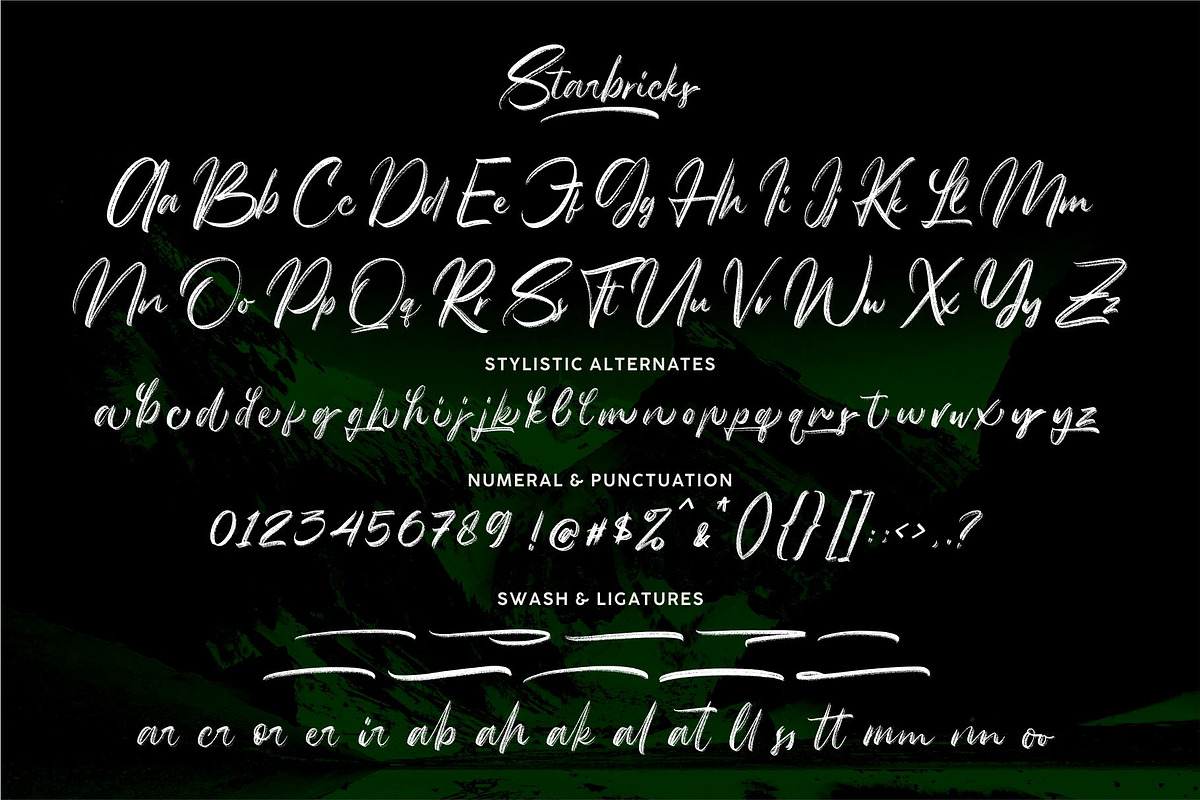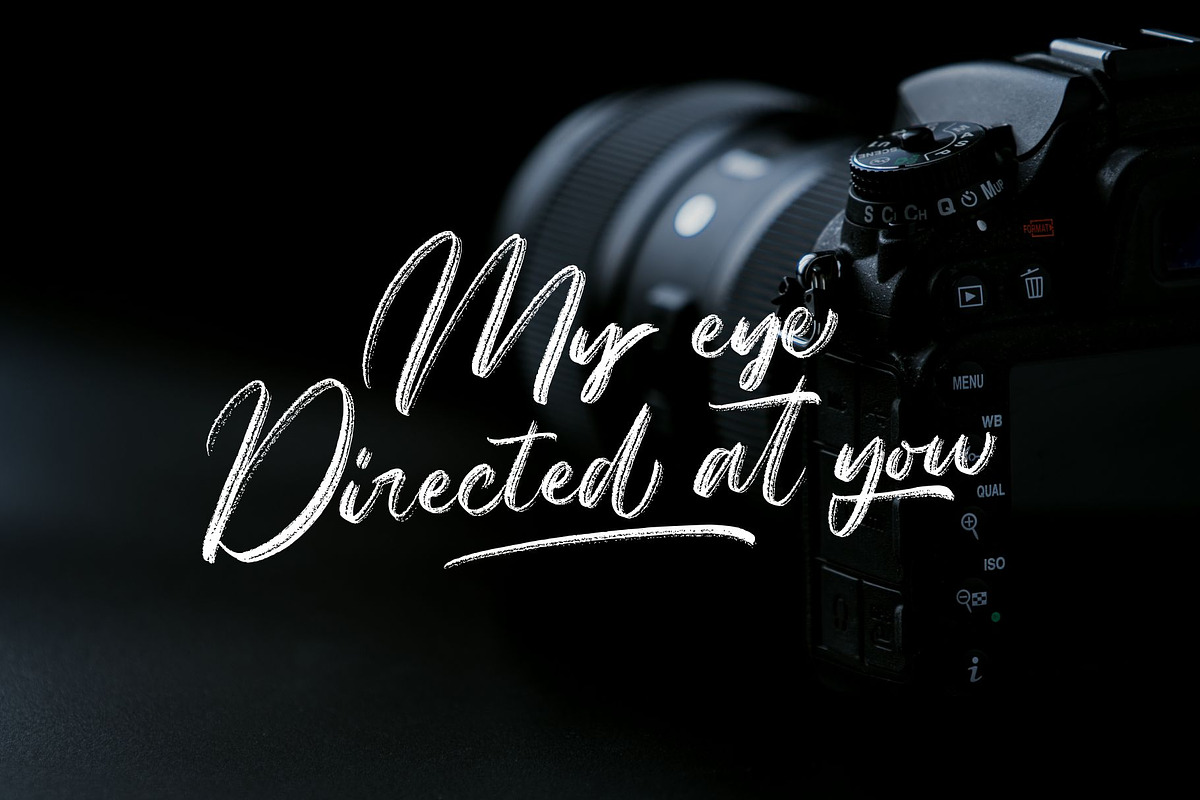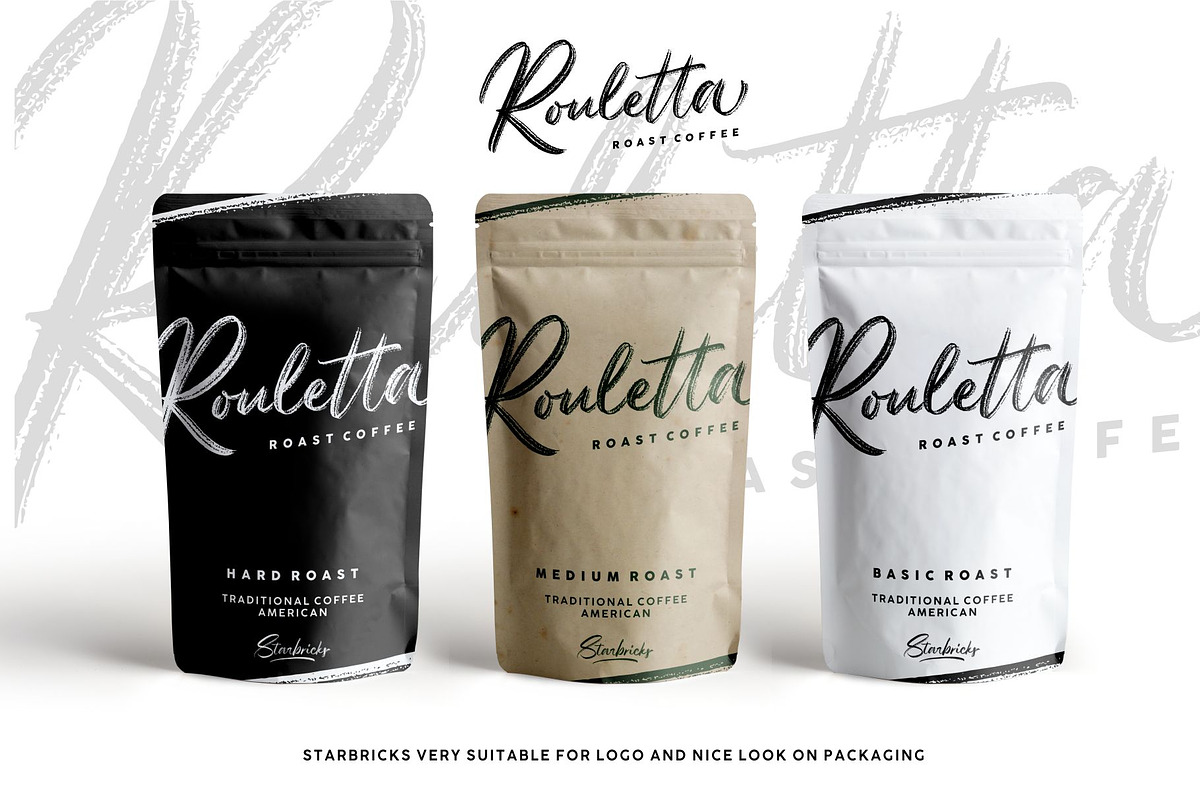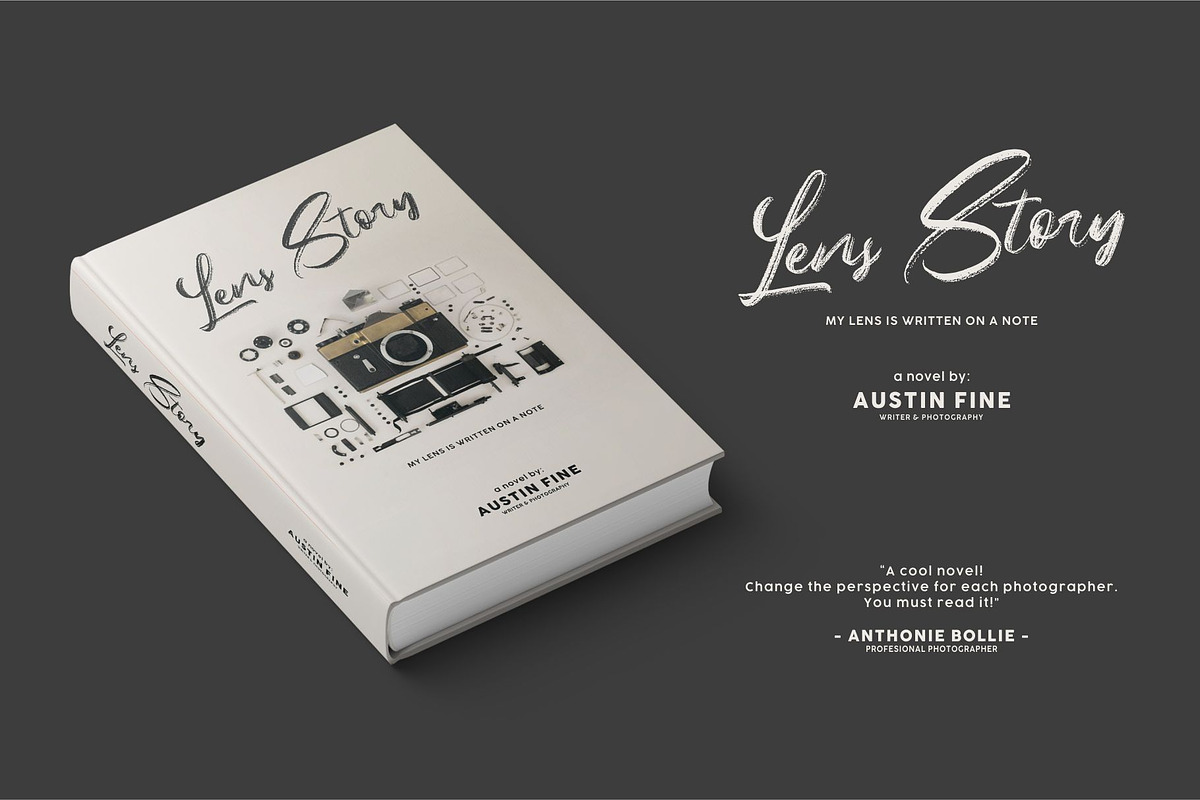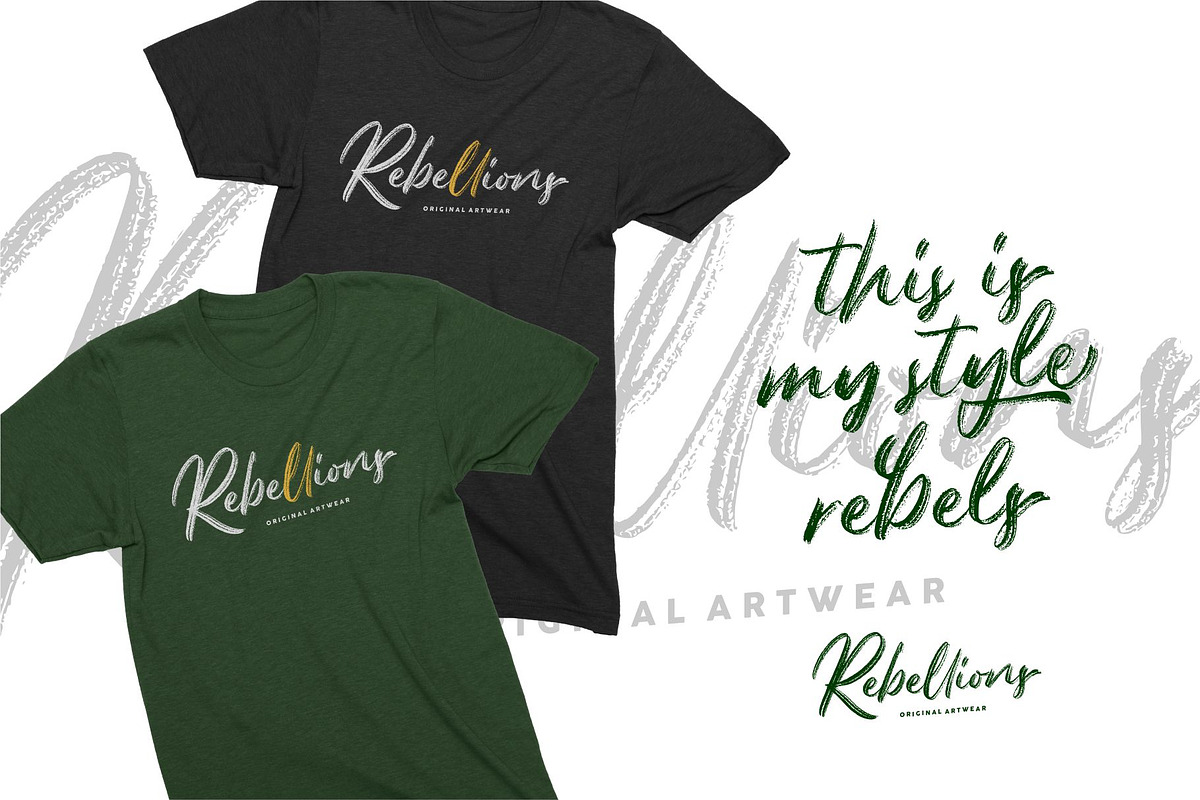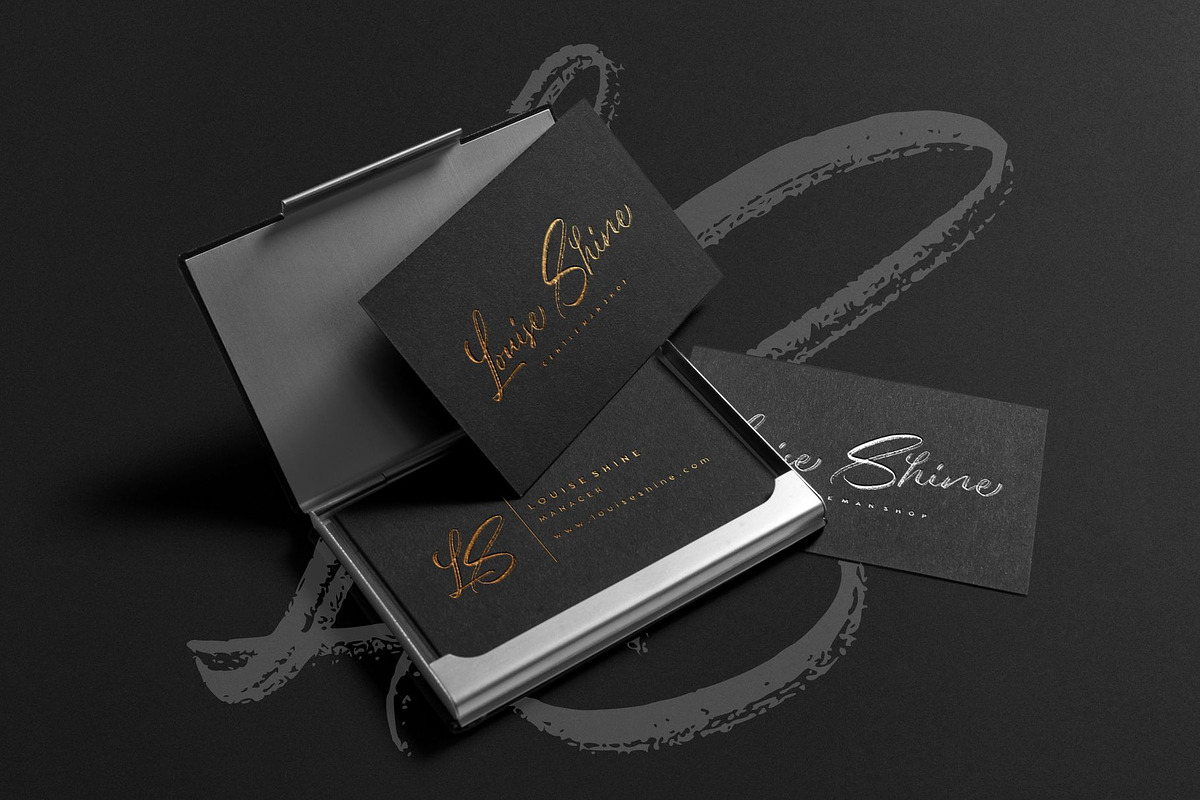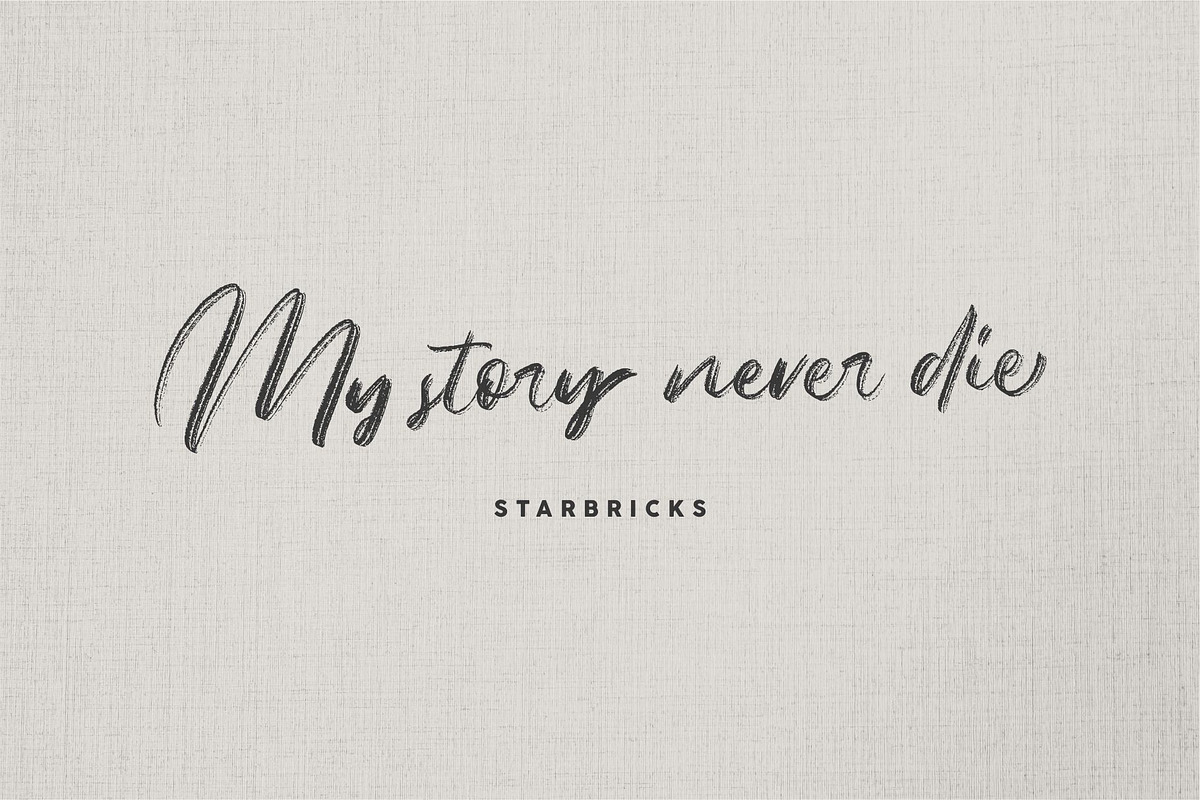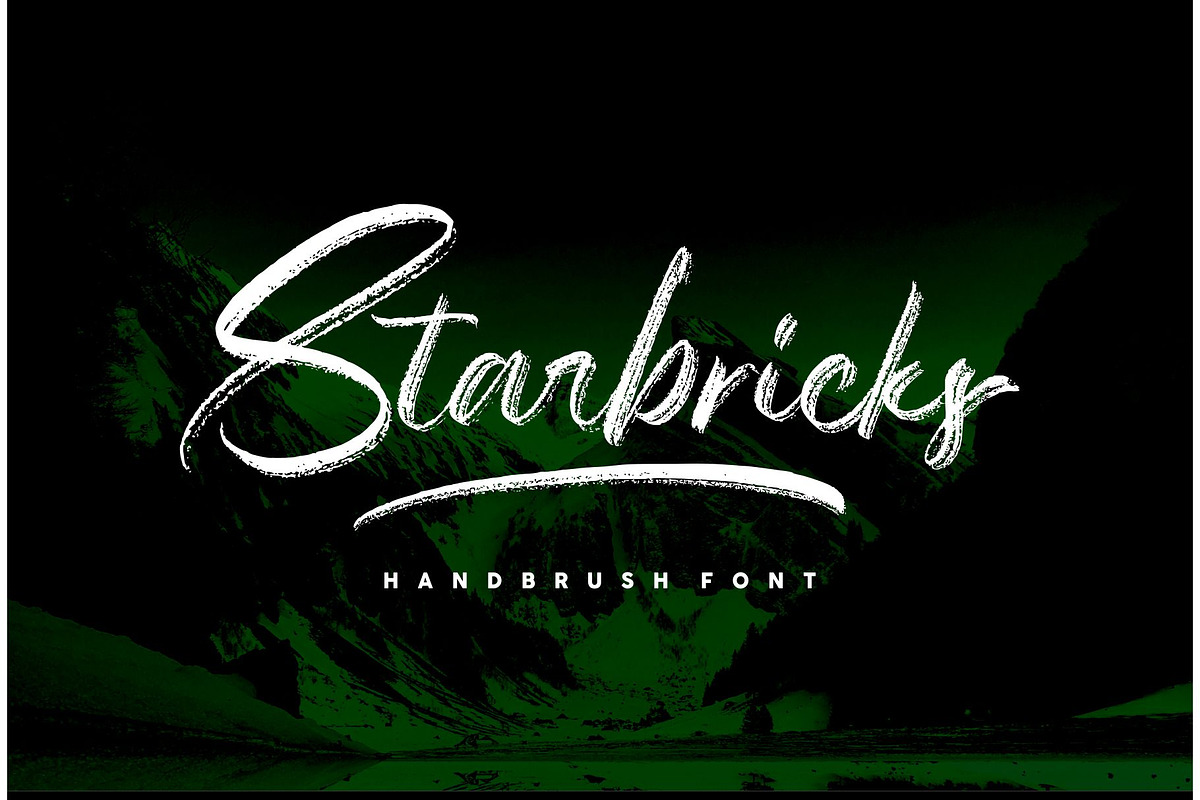
Starbricks - Handbrush Font
Introducing our new brush font: STARBRICKS
Starbricks is made with natural handbrushes. With the unique Opentype in it and the ligature will add aesthetic value to your design product. Available in this file are Starbricks Fonts and also Swash which you can unite into an amazing design. You can even use the Opentype feature without the help of any special software, whether it's in Adobe Illustrator, Corel Draw, or Photoshop.
Versatile for branding, headline, or printing product